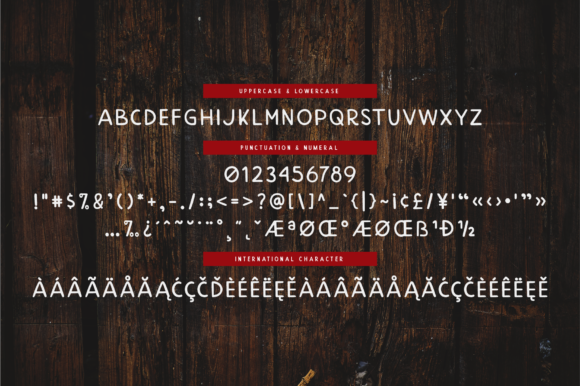
Introduction to Hipsters Font
The Hipsters is a handmade sans serif font.
It has a good readability and will add a striking look to your designs .
Key Features of Hipsters Font